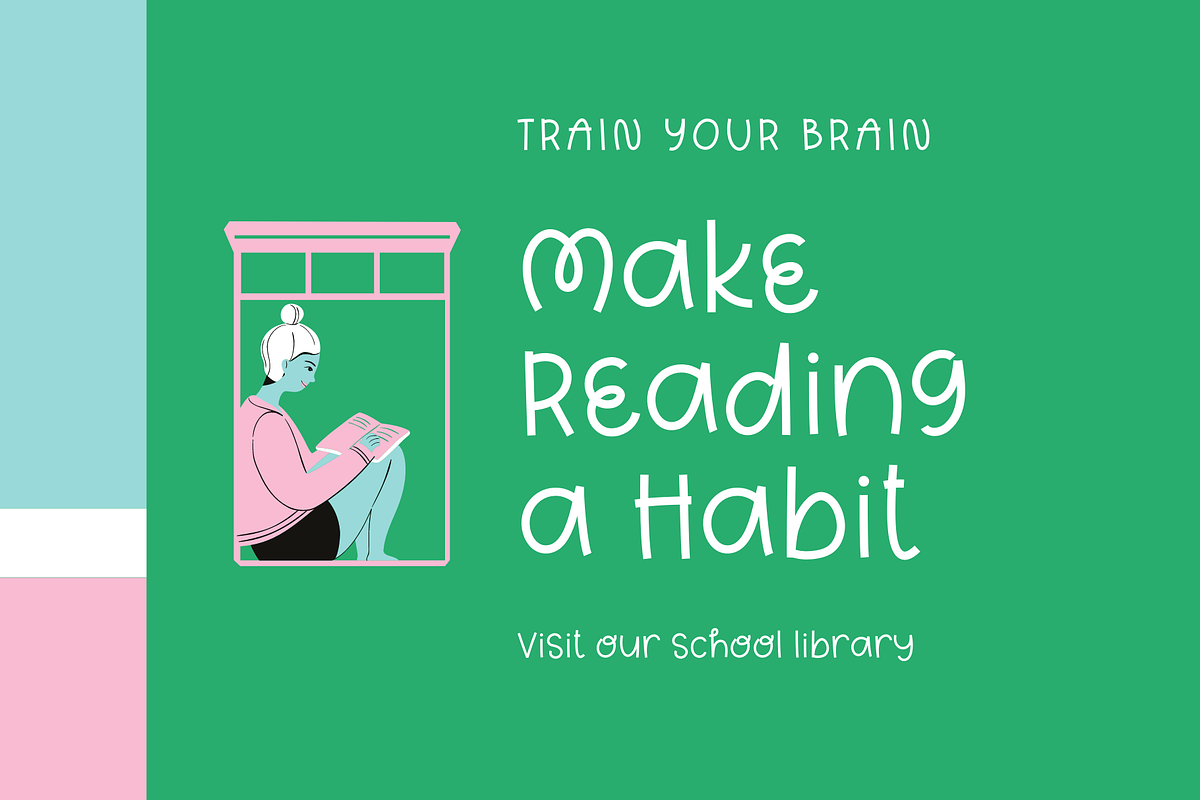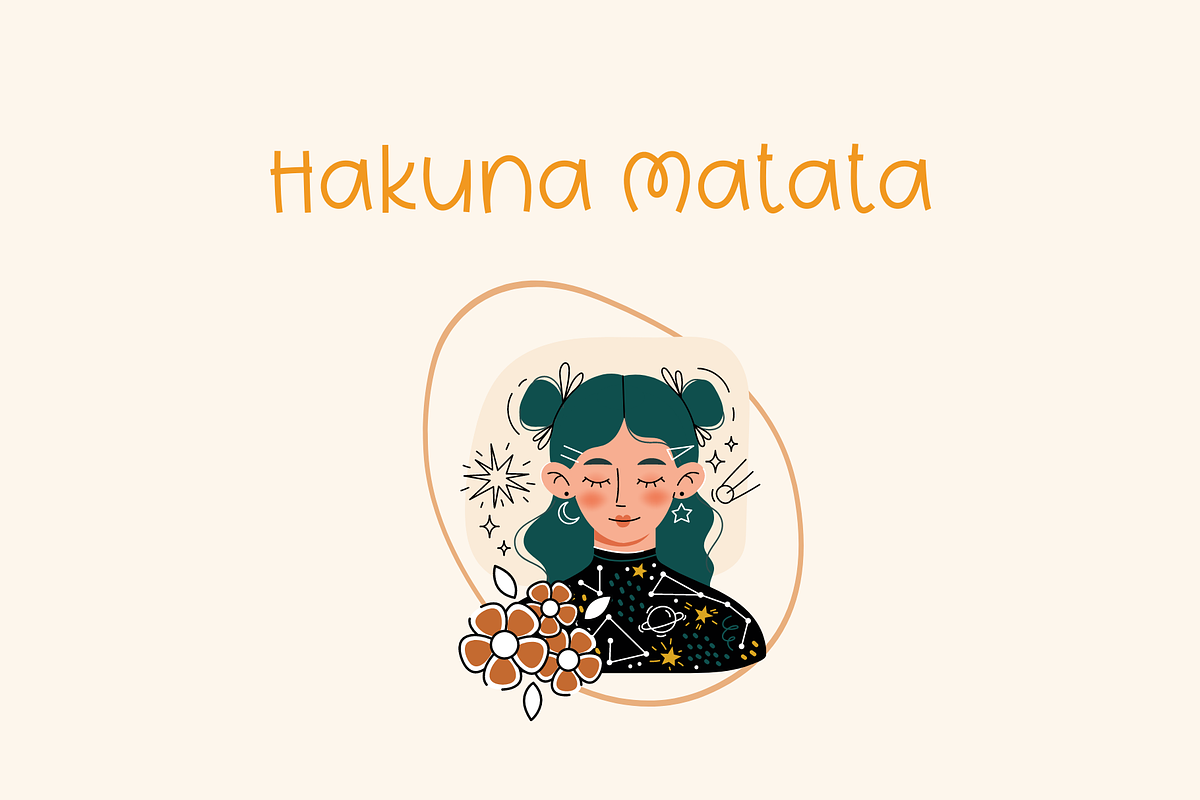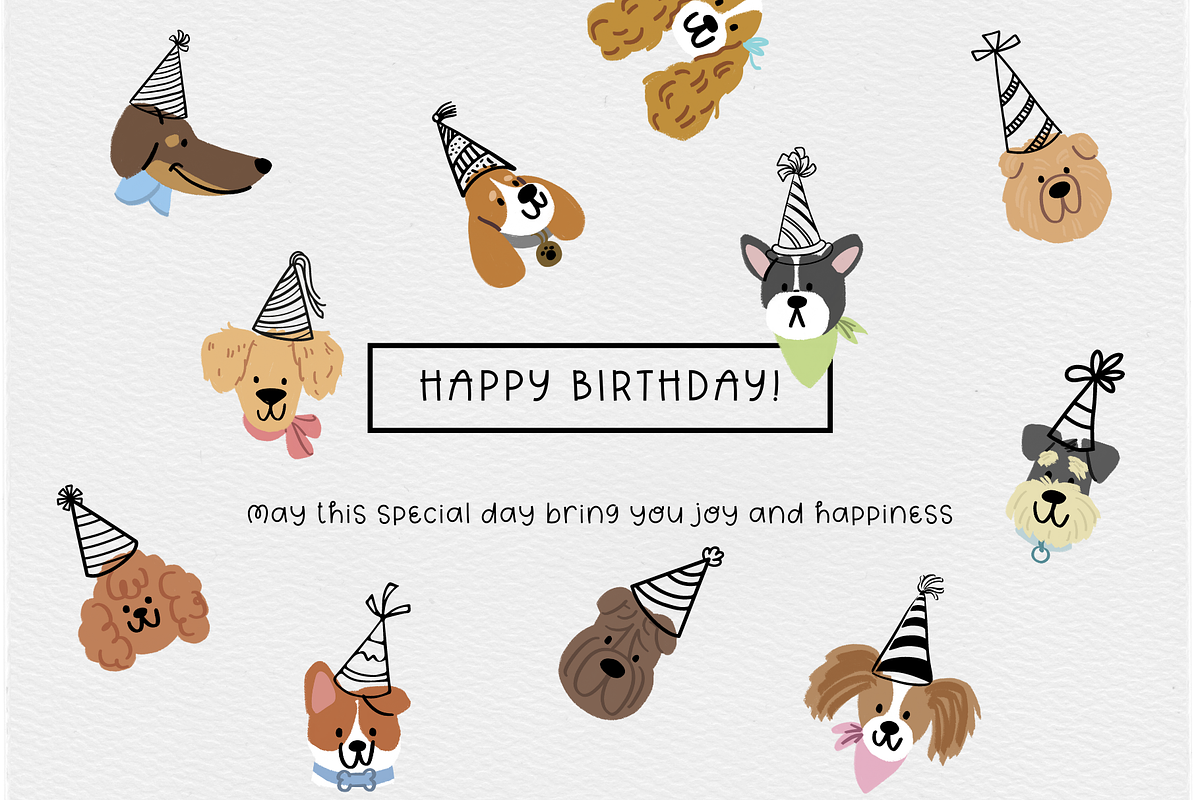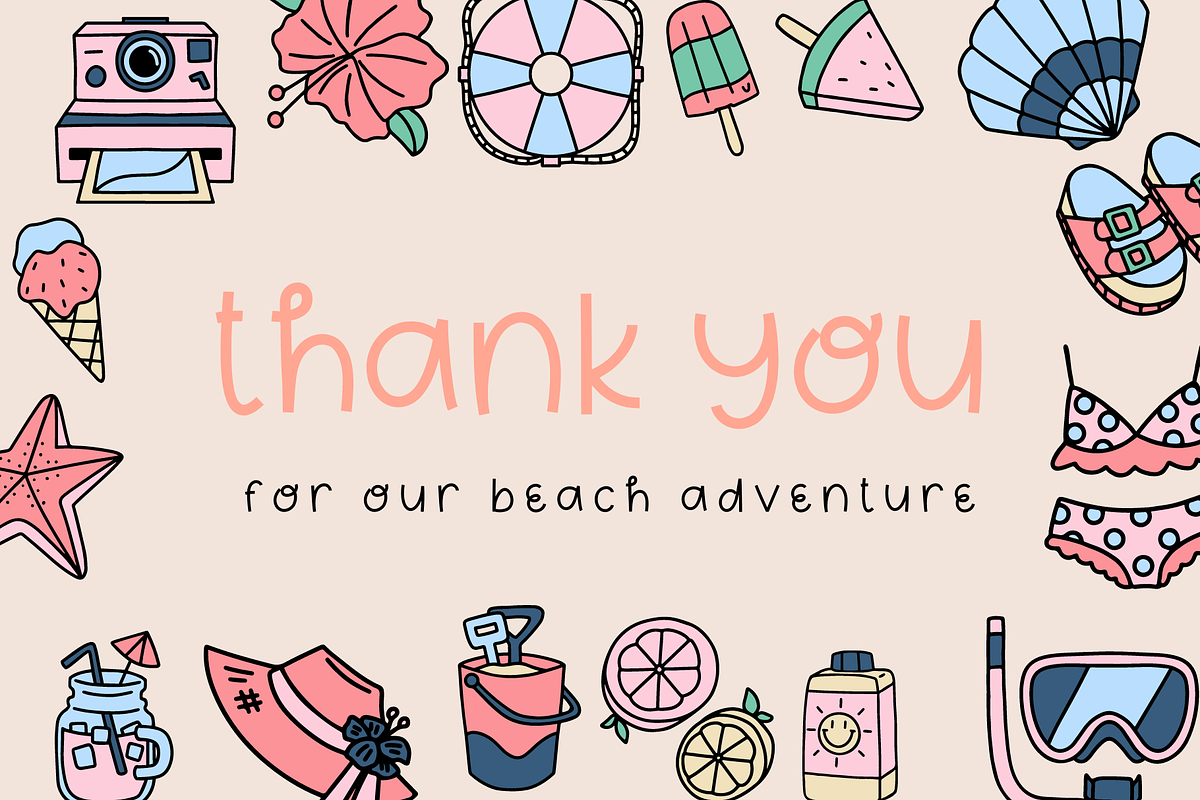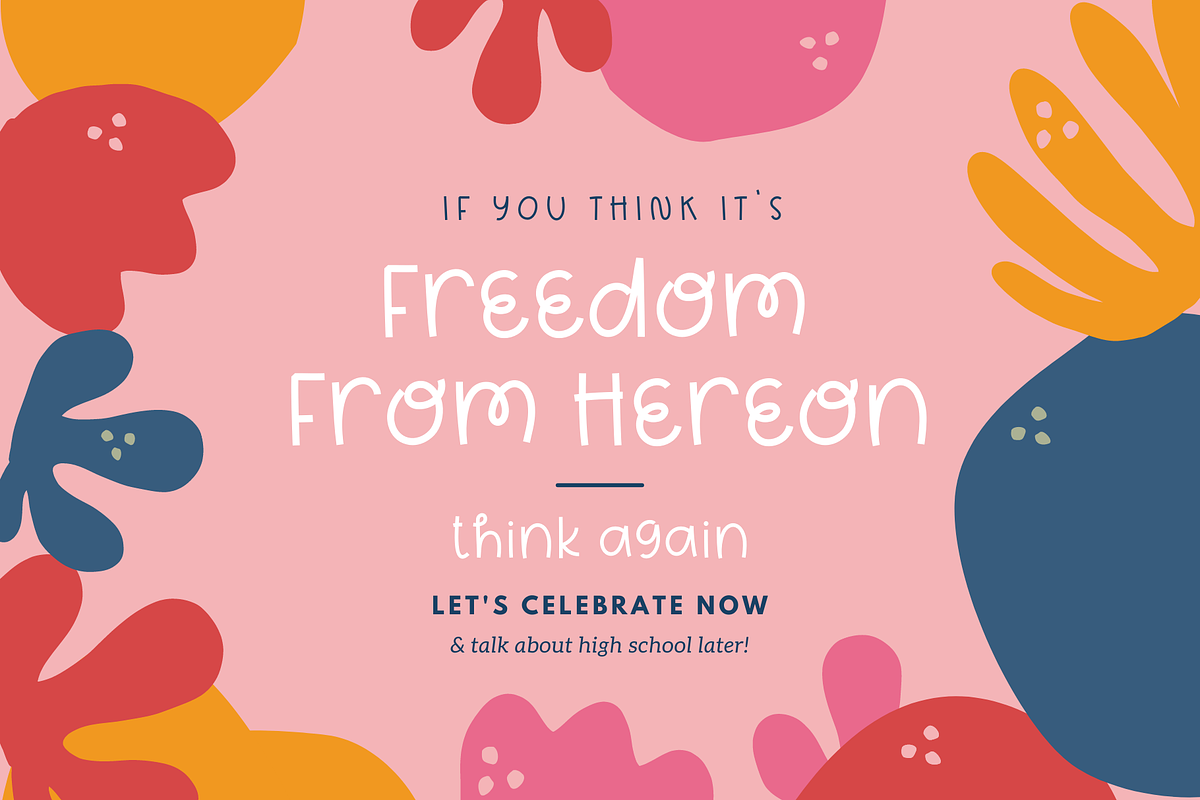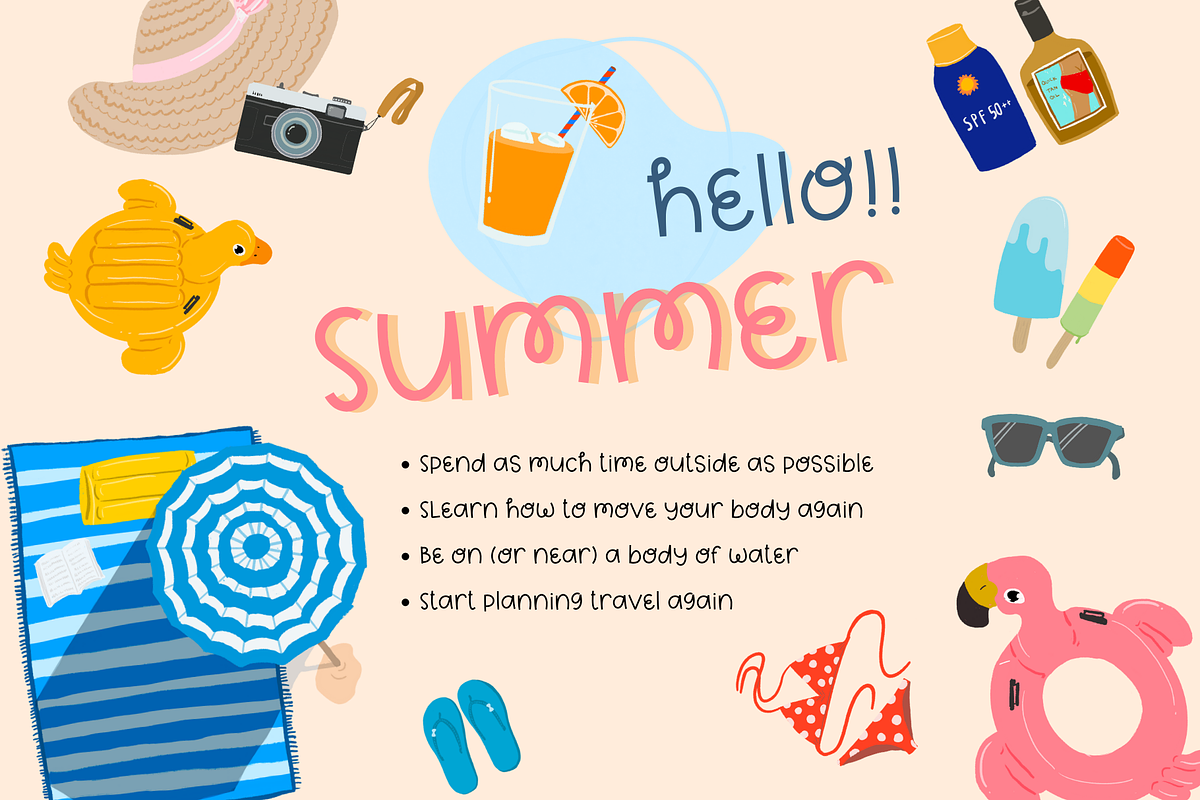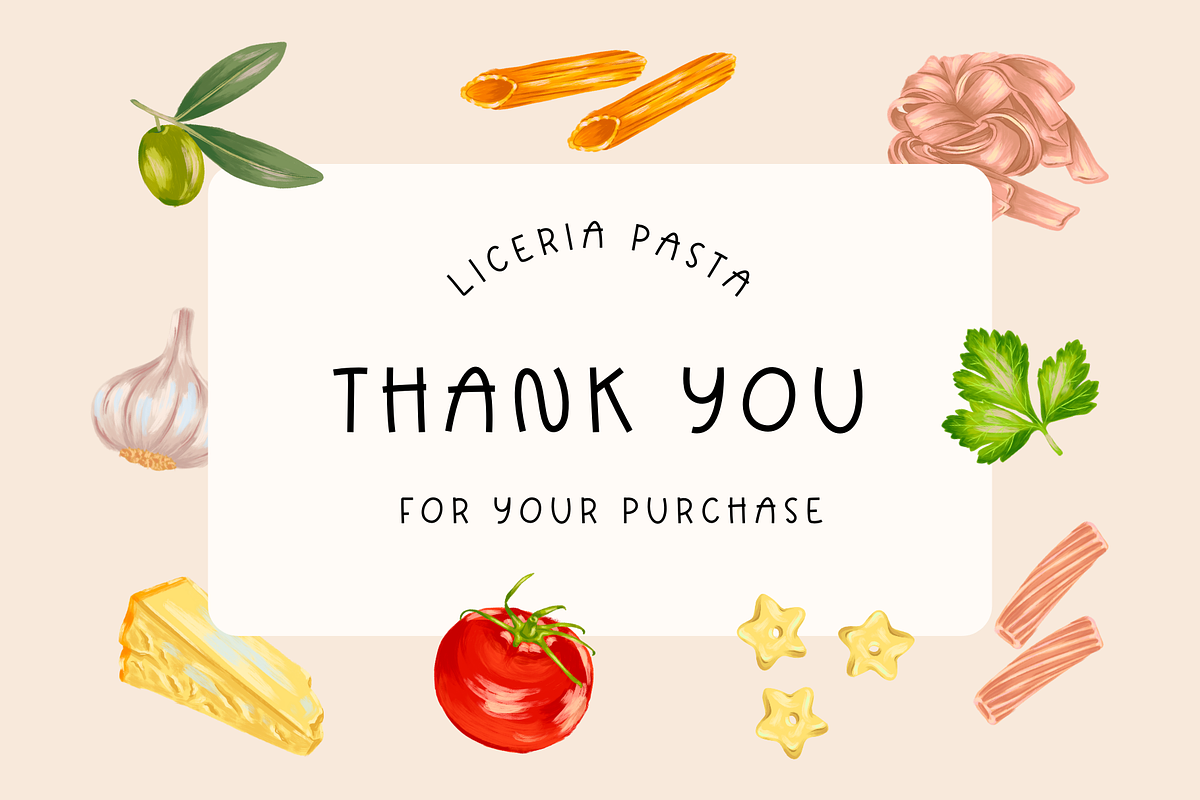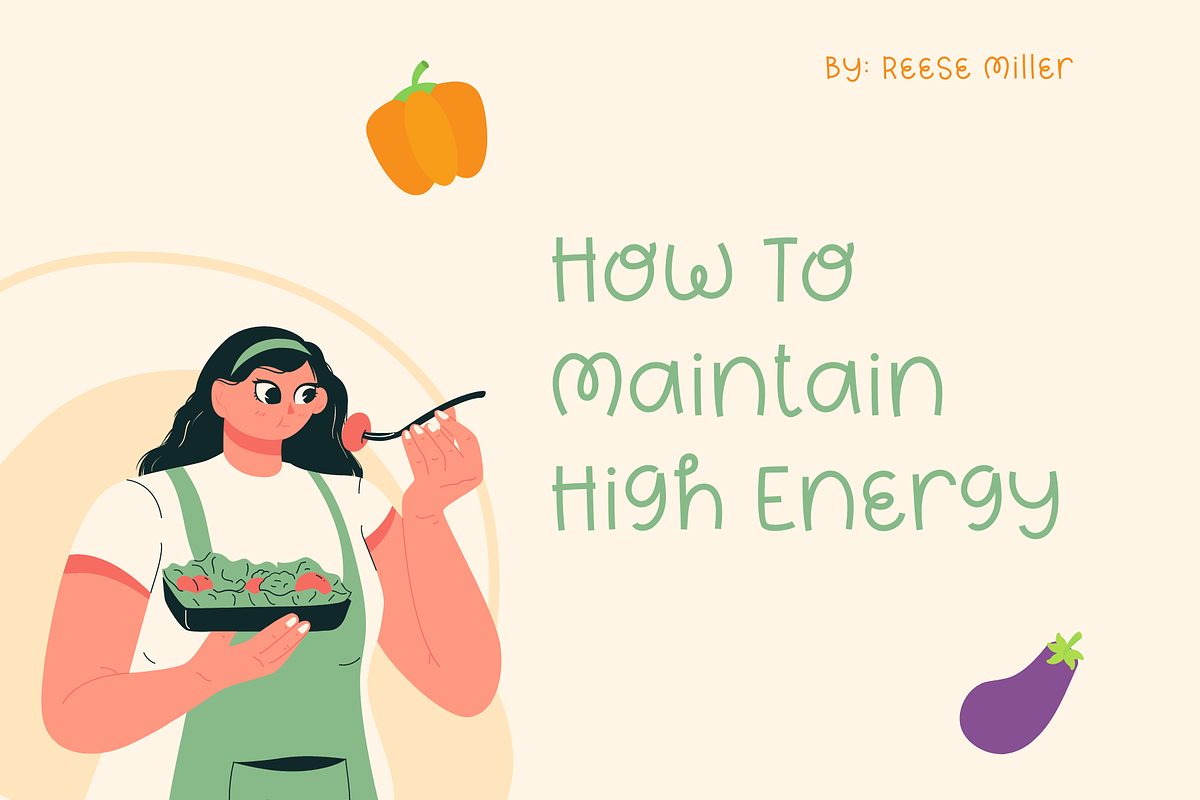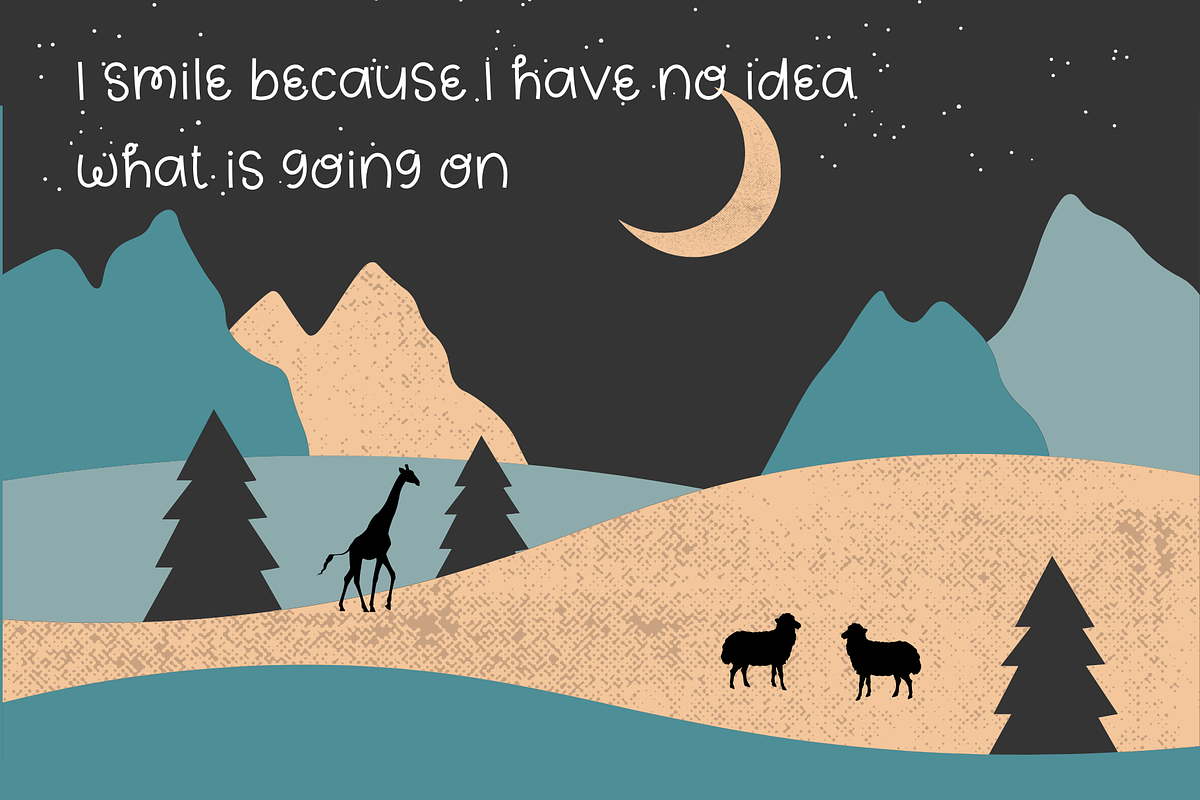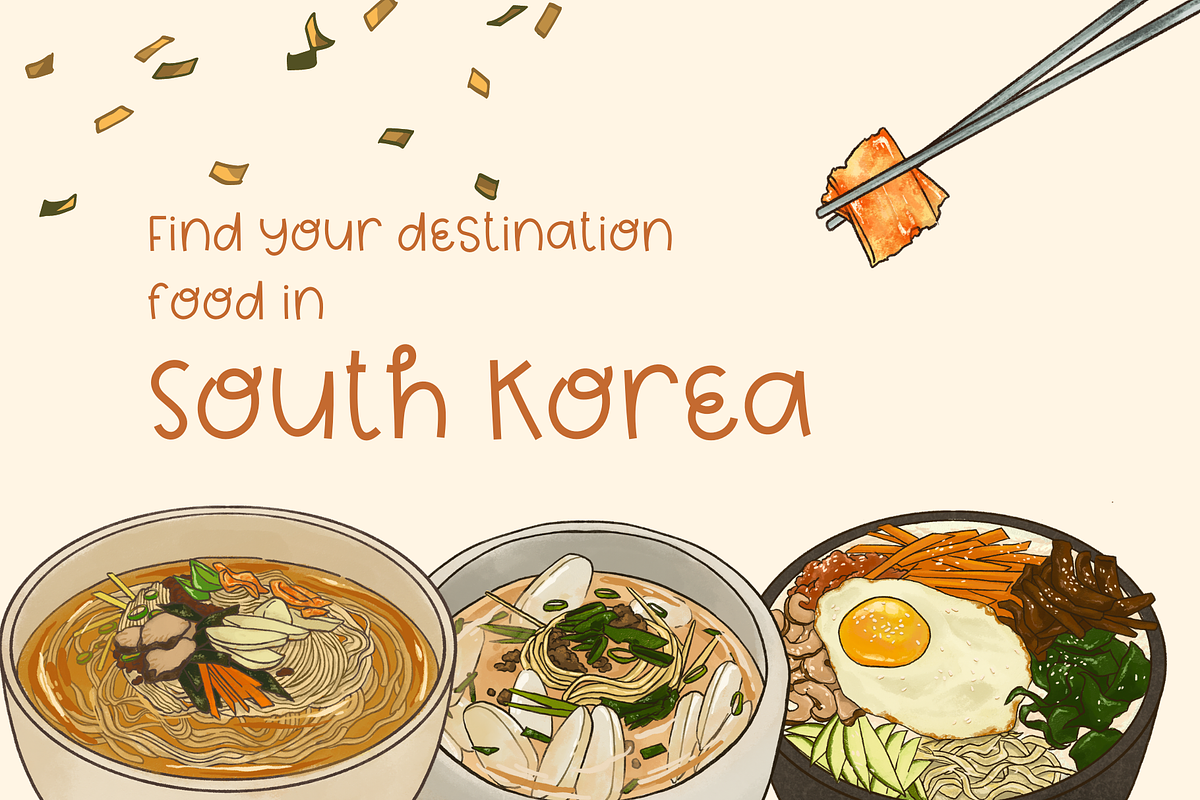
Perky Wonder
Use Perky Wonder to create super cute logos, branding, notebooks, journals, labels, stickers, blogs, quotes, greeting cards, tea towels, apparel, pillows, mugs, toys, posters, baby clothing, picture books and so much more... basically anything that requires a cute and fun look! 😍